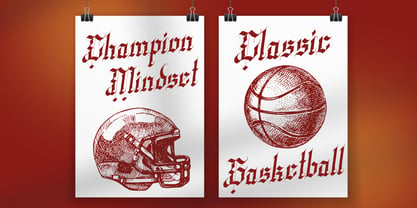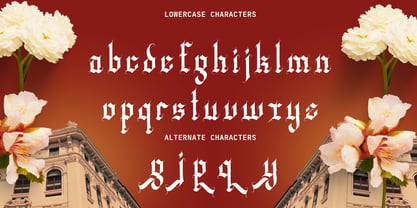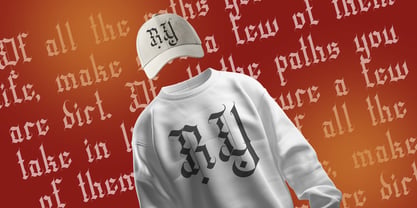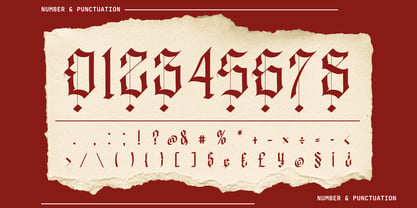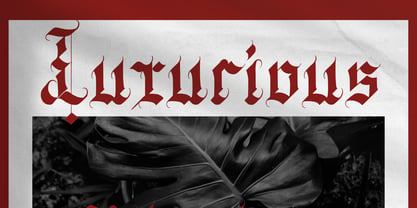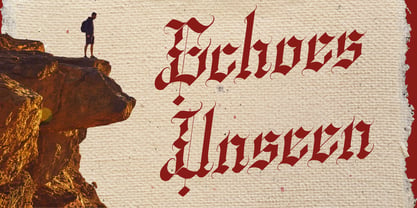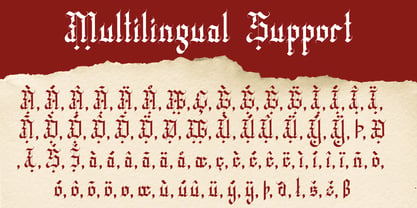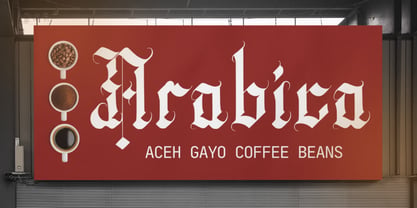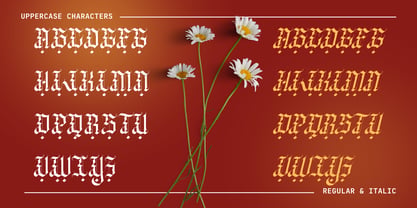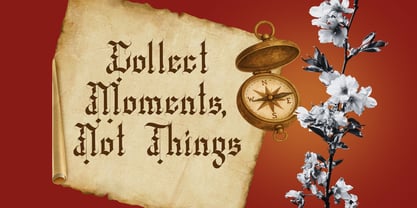
Wedgen Holdeza
by Rvandtype
The Wedgen Holdeza Font Family was designed by Randi Irvan and published by Rvandtype. Wedgen Holdeza contains 2 styles and family package options. More about this family
Elevate your design projects with Wedgen Holdeza, a classic and striking blackletter font designed to bring a strong, bold, and vintage aesthetic to your creative work. Perfectly bridging the gap between traditional gothic calligraphy and modern street style, this typeface delivers an unmistakable presence with its sharp, intricate terminals and robust strokes. Whether you are crafting rebellious streetwear apparel, tattoo studio branding, vintage beverage packaging, music posters, or striking logotypes, Wedgen Holdeza commands attention while maintaining excellent visual balance and readability. Fully equipped with comprehensive uppercase and lowercase characters, numerals, punctuation, stylistic alternates, and multilingual support, this versatile typeface provides everything you need to create highly impactful and timeless typography.